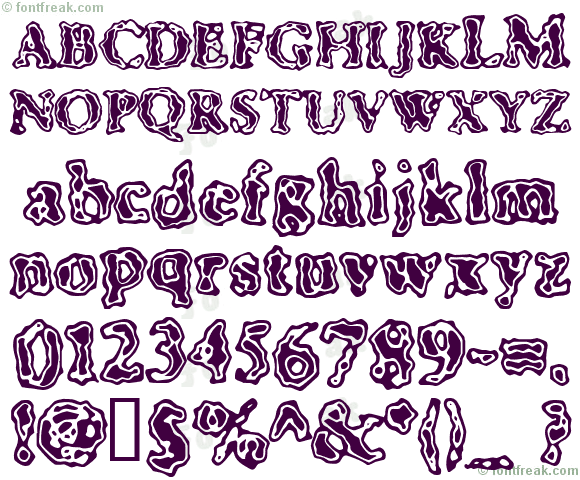
Rangle
About Rangle
Rangle is a unique display font created by FONTASTIC! in 1998, designed to captivate and engage audiences with its distinctive visual style. This font is characterized by its bold, playful strokes that give an organic and hand-drawn feel. The uneven stroke weight and distinctive contours create a whimsical appearance, making it stand out in any design project. The spacing between letters is generous, further enhancing its readability while maintaining a fun and quirky aesthetic.
The Rangle font is ideal for a variety of creative applications. It works particularly well for eye-catching wedding invitations, where its playful nature can infuse a sense of joy and celebration. Additionally, it can be effectively used in movie posters, helping to convey a lighthearted or adventurous theme. Restaurant menus can also benefit from Rangle's unique charm, offering a memorable experience for diners. Furthermore, content creators will find it a perfect fit for social media graphics that require a distinct and engaging look.
This font appeals to a wide range of audiences, including graphic designers looking to add character to their projects, small business owners seeking to differentiate their branding, and content creators aiming to capture attention in a crowded digital landscape.
What sets the Rangle font apart is its ability to blend fun and functionality seamlessly. While it exudes a whimsical charm, it remains versatile enough for various applications, allowing designers to push creative boundaries. With the Rangle font free download available, it offers an accessible option for anyone looking to enhance their design toolkit with a touch of personality. Embrace the charm of Rangle and elevate your projects with this striking typeface.